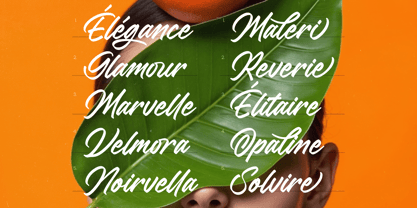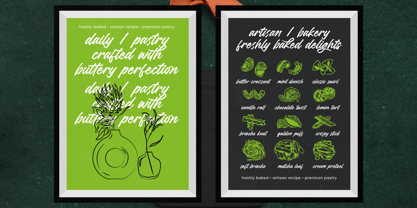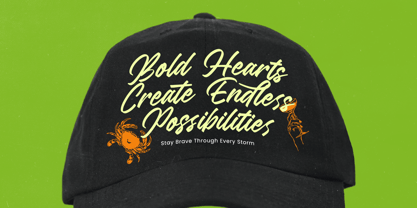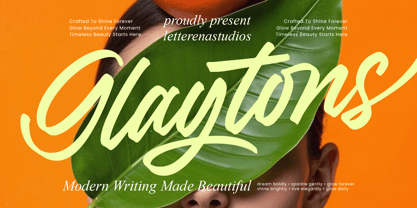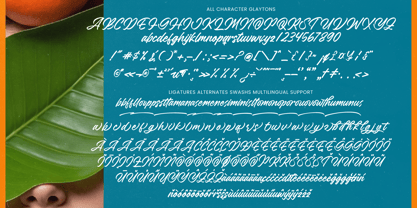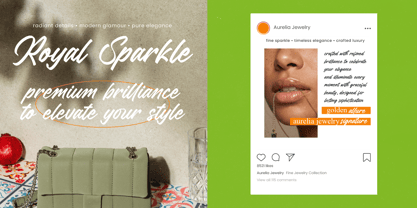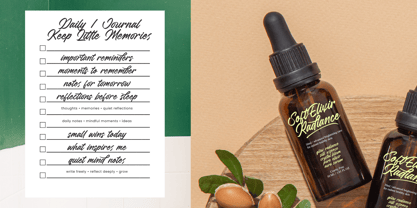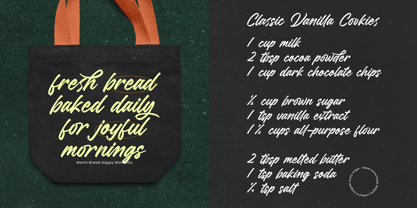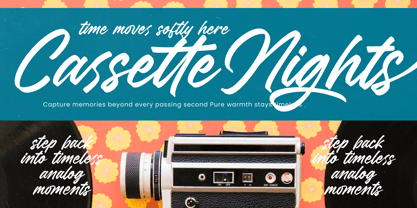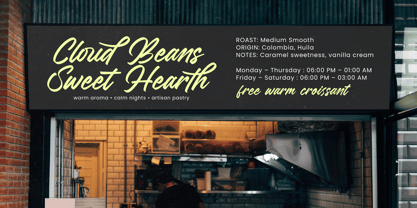
Glaytons
by Letterena Studios
The Glaytons Font Family was designed by Heru Utama Putra and published by Letterena Studios. Glaytons contains 2 styles and family package options. More about this family
Glaytons - Bold Script Handwritten Font
Elevate your design projects with a touch of authentic sophistication using Glaytons - Bold Script Handwritten Font. This high-impact typeface features fluid, hand-drawn strokes that capture a sense of organic energy and modern elegance. Its bold weight ensures that your headlines command attention while maintaining a stylish, personal aesthetic that resonates with contemporary audiences looking for a bespoke visual identity.